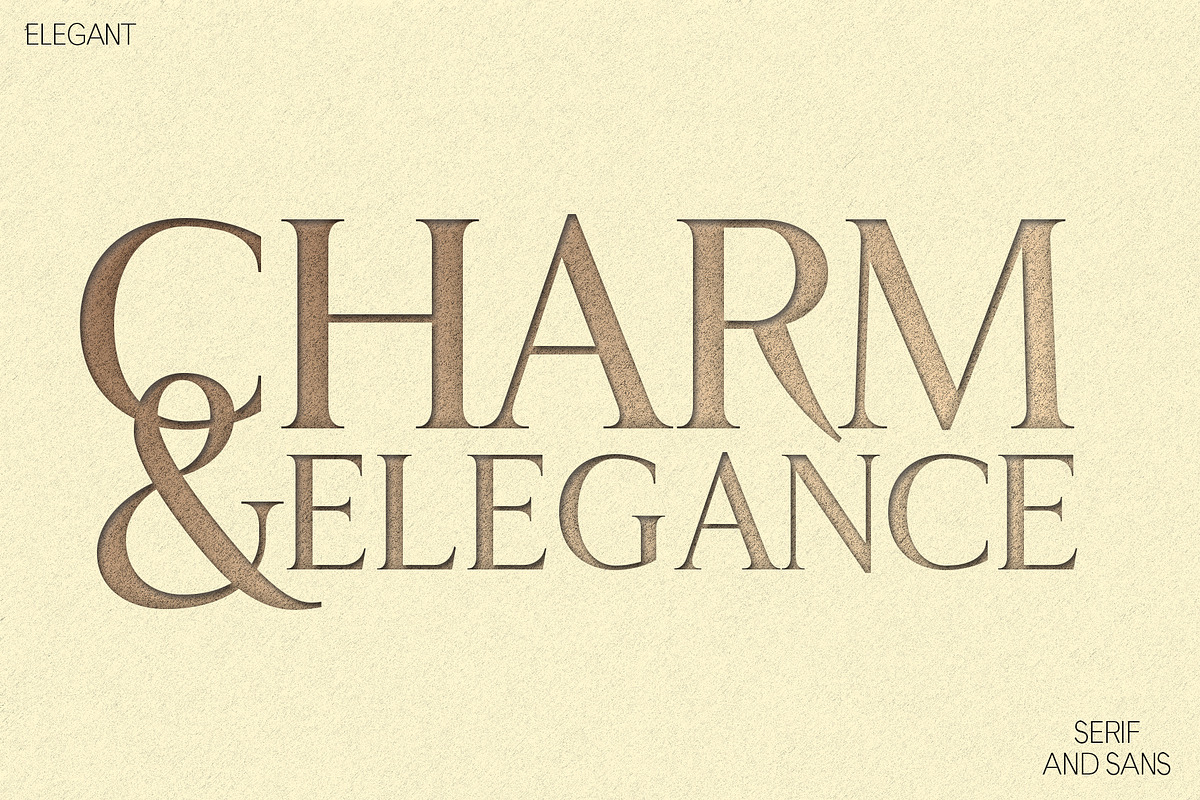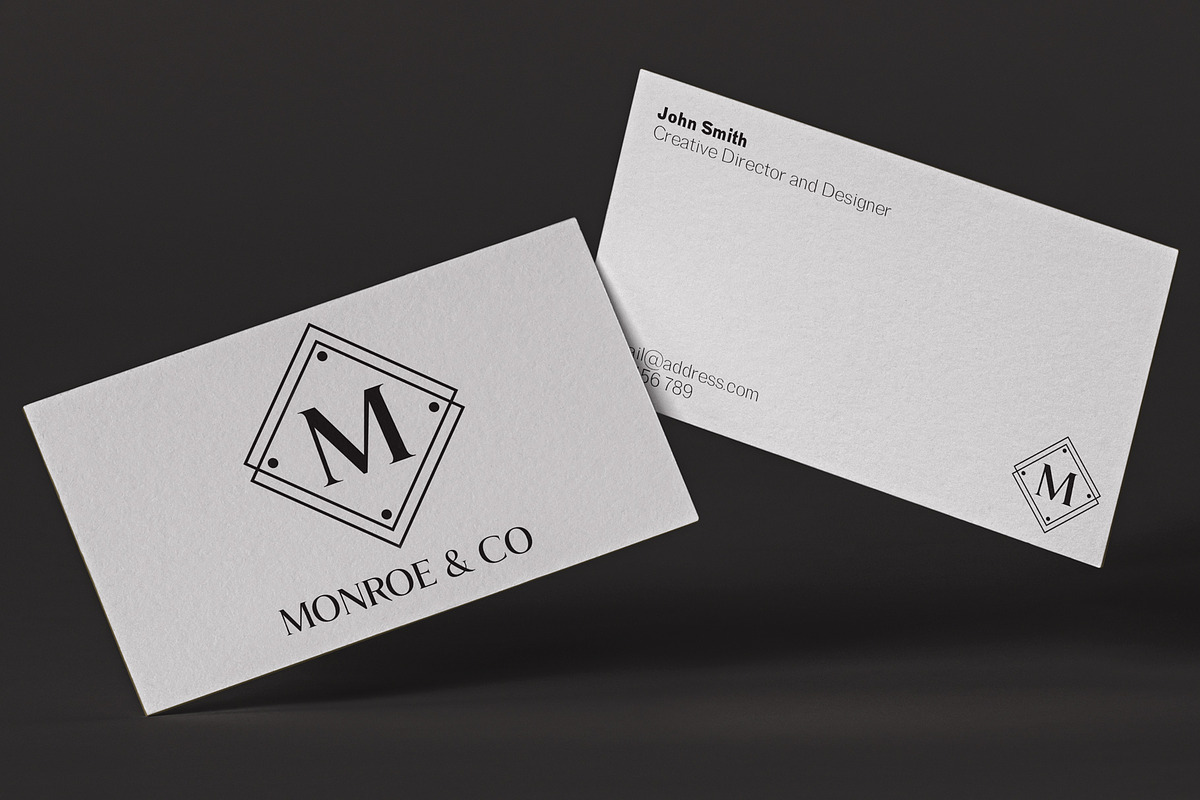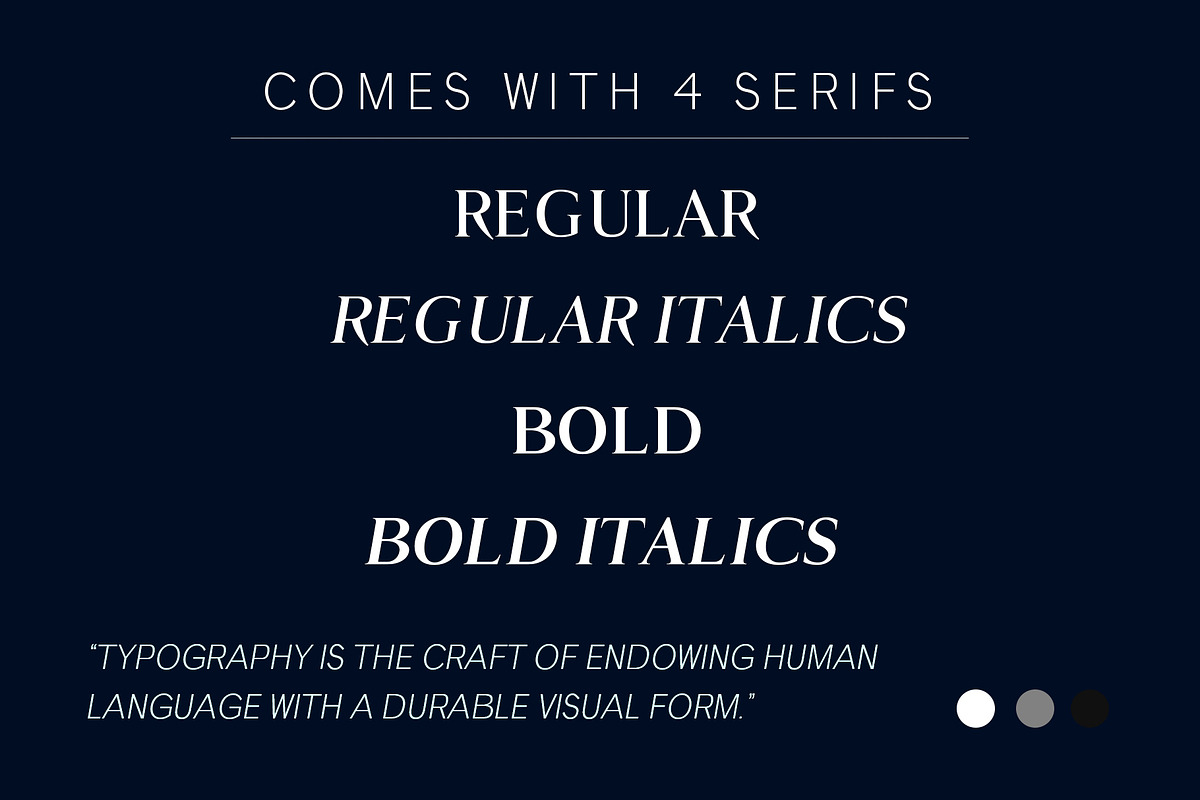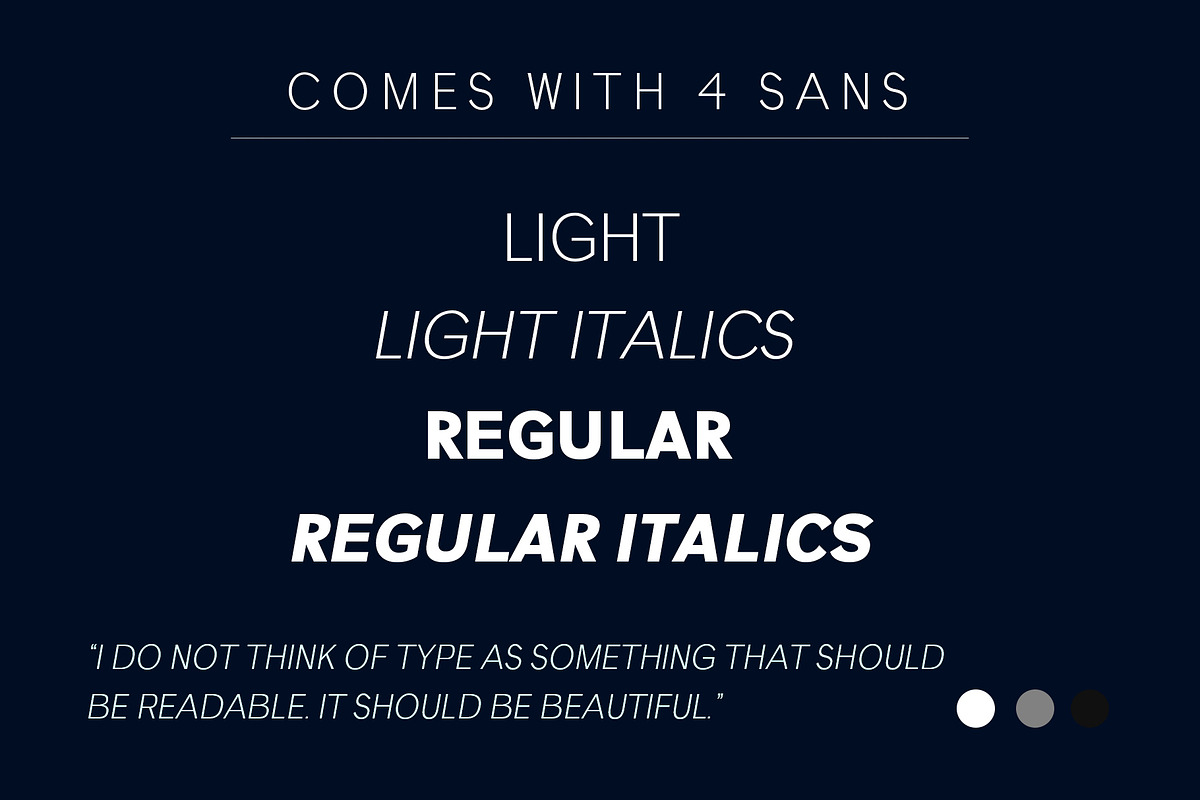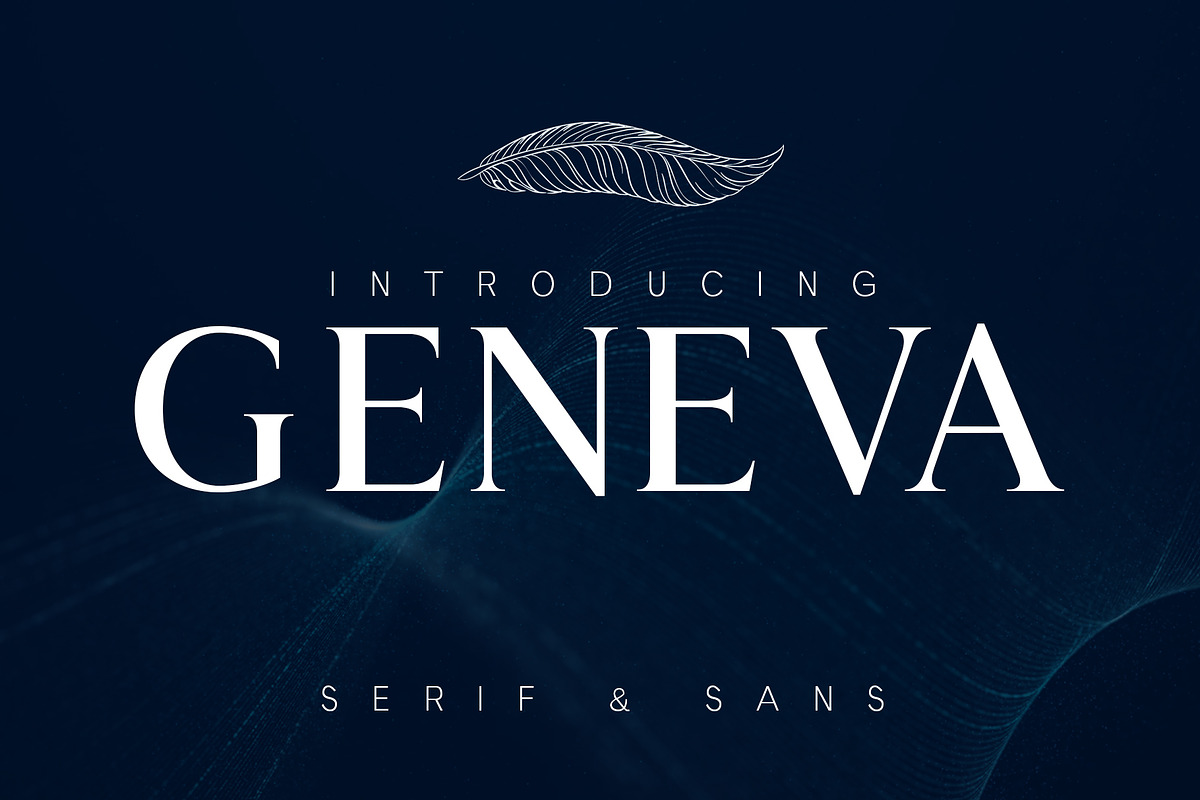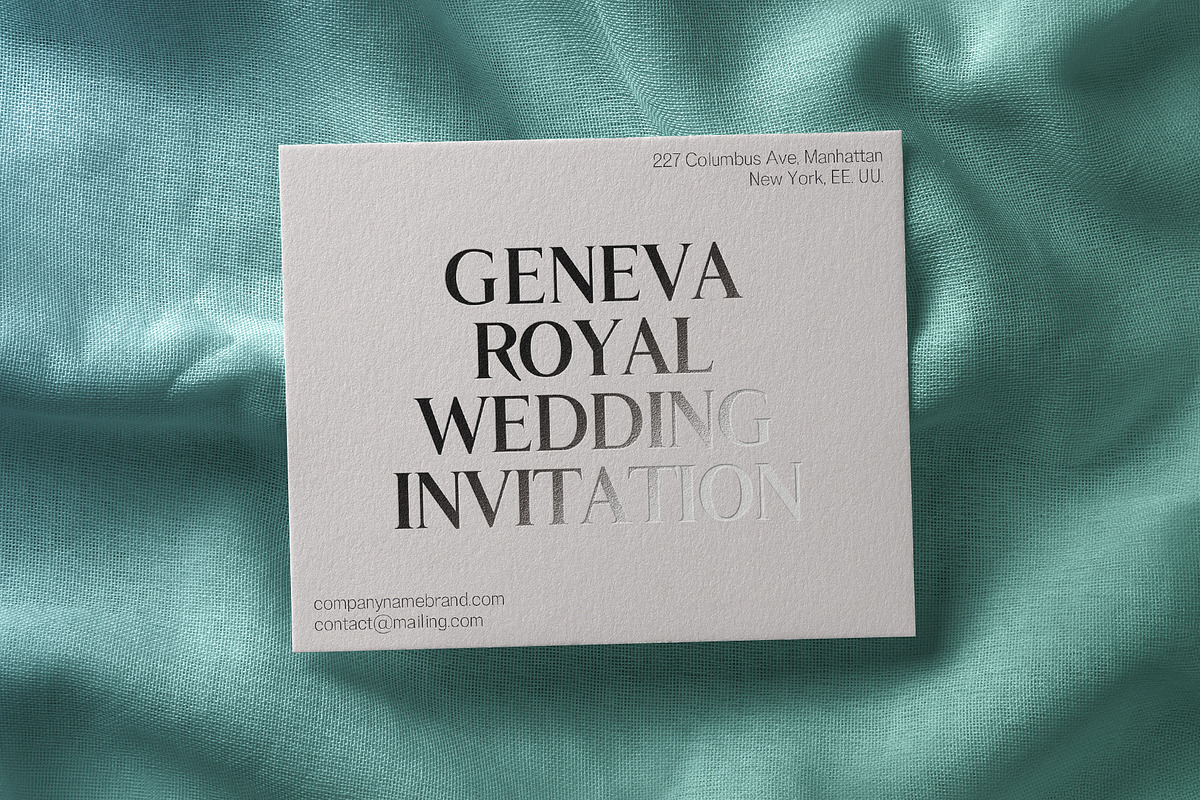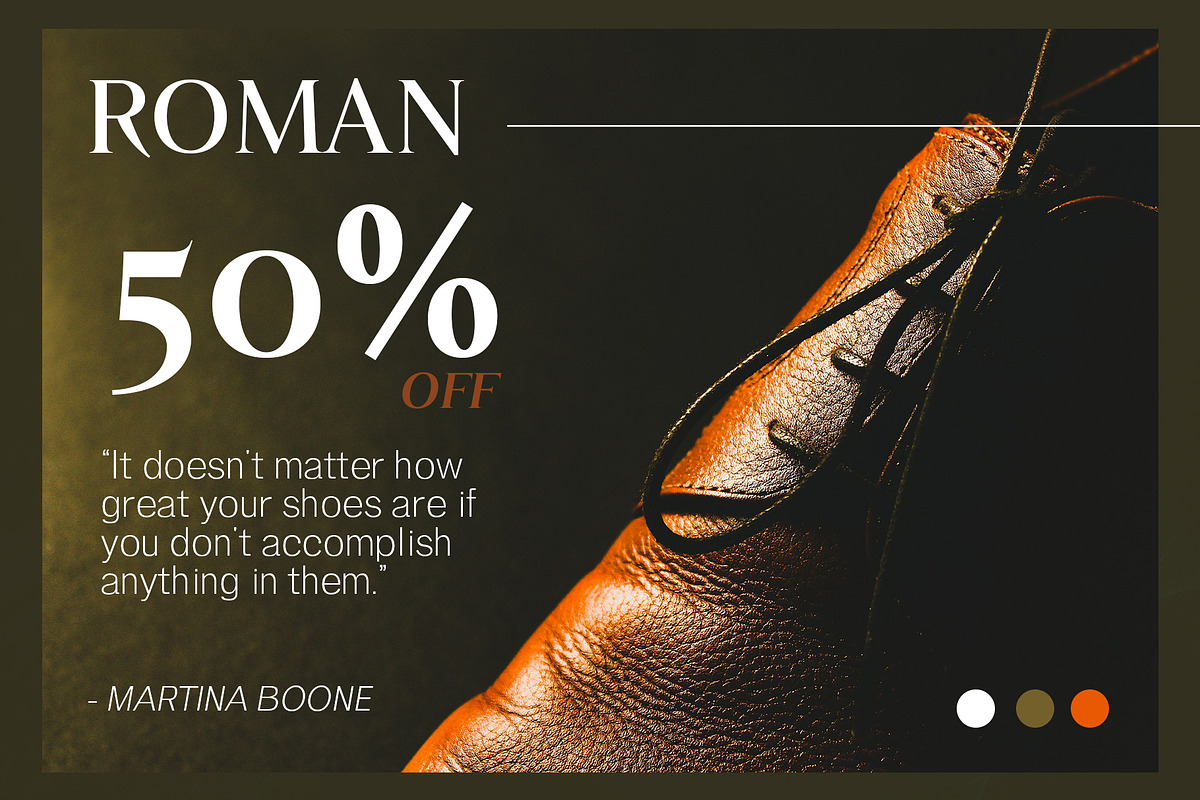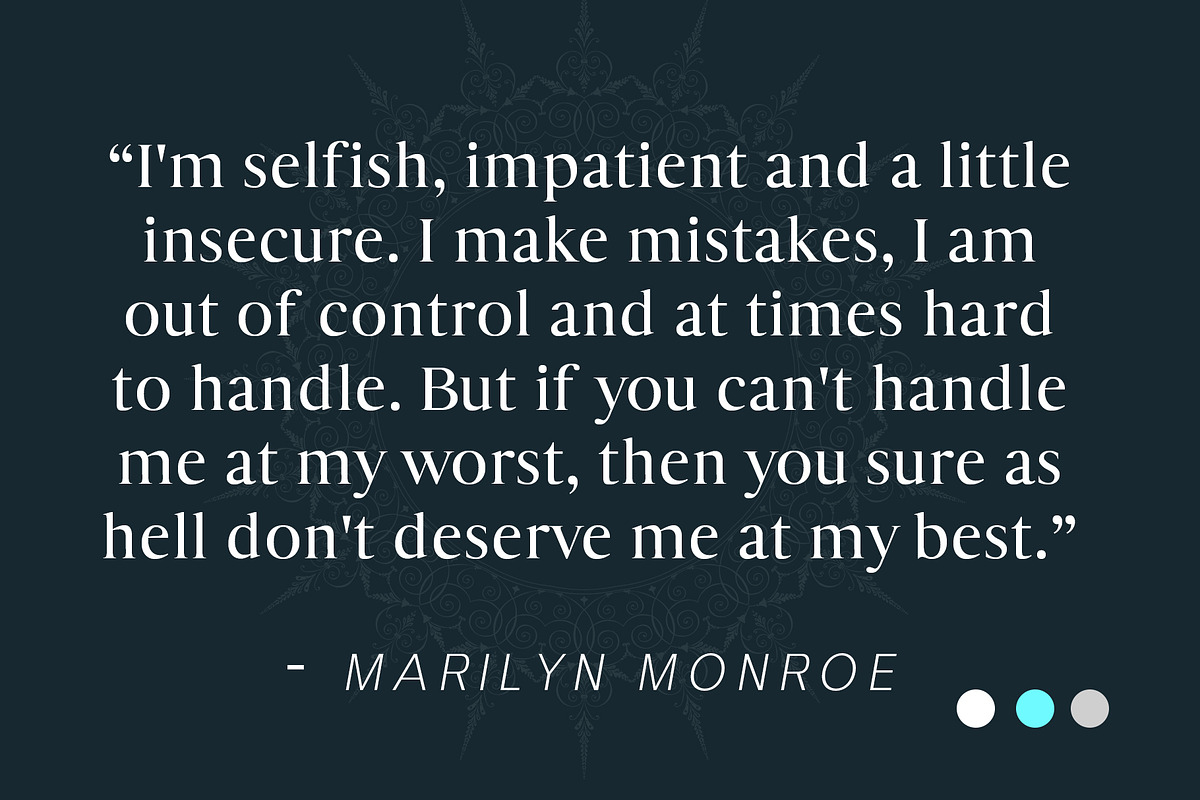
GENEVA Typeface Duo
An elegant family of 8 fonts. Geneva is a modern serif and sans font pairing that perfectly compliments each other. With both masculine and feminine qualities; this font is perfect for your next project and an essential digital asset to own.